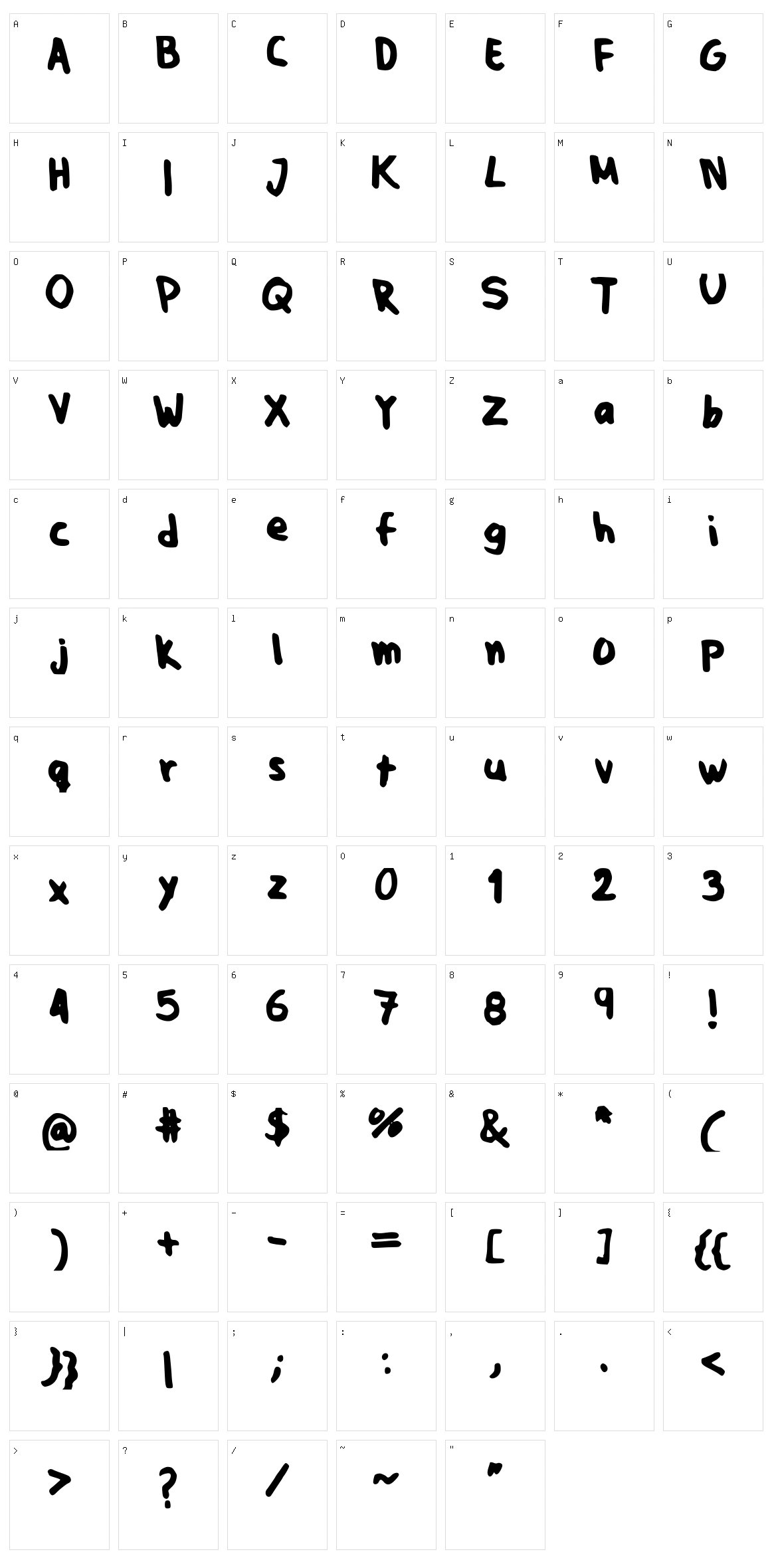
The free font JPfont is carefully designed by Joan Pava, showcasing a thoughtful balance of creativity and usability and falls under the Script font style. When you download the ZIP file, it contains only 18.22 KB of font files, making it lightweight and quick to download. Please review the license details below to understand permitted usage and distribution rights. If license information is not available, we recommend using this font for personal projects only or contacting the author directly for commercial usage permissions.